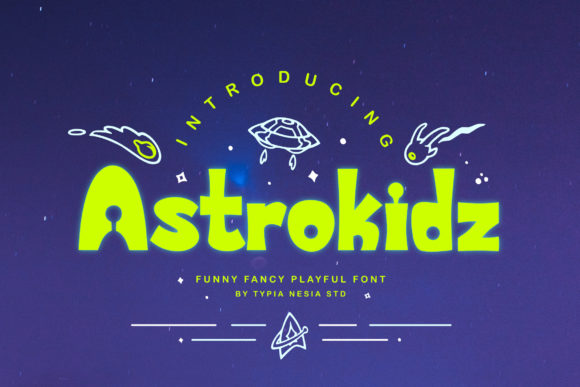
Embark on a cosmic adventure with Astrokidz Font, the futuristic typeface that will ignite your imagination and elevate your designs to the next level. Prepare to be captivated by its playful yet sophisticated elegance that effortlessly blends the boundaries between the past and the future.
Dive into a world of boundless creativity with Astrokidz Font. Its meticulously crafted characters dance across the page with a youthful exuberance that will infuse your designs with an infectious energy. Say goodbye to mundane typography and welcome a universe of possibilities where your words come alive with a vibrant, otherworldly charm.
With Astrokidz Font, you'll discover a universe of expressive potential. Unleash your inner child and let your creativity soar. Whether you're designing eye-catching headlines, captivating social media posts, or crafting immersive digital experiences, this font will empower you to make a statement that resonates with your audience.
Imagine your words taking flight, adorned with the sleek lines and cosmic curves of Astrokidz Font. Its versatility knows no bounds, adapting seamlessly to a multitude of design projects. From futuristic posters to whimsical branding, children's books to intergalactic websites, this font is your gateway to a typographic adventure that will leave an unforgettable impression.
Don't settle for ordinary when you can embrace the extraordinary with Astrokidz Font. Its unique blend of playfulness and sophistication will captivate your audience, leaving them mesmerized by your designs. Prepare to witness your projects transform into masterpieces, radiating with a distinct personality that speaks volumes.
Join the creative revolution and embrace the power of Astrokidz Font. Its meticulously crafted characters will ignite your imagination and empower you to create designs that transcend the ordinary. Experience the future of typography today and let your designs shine brighter than a thousand stars.